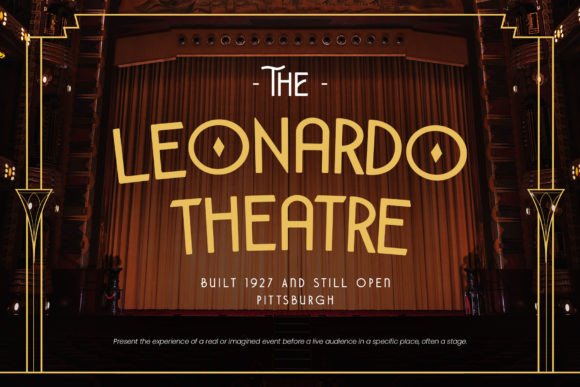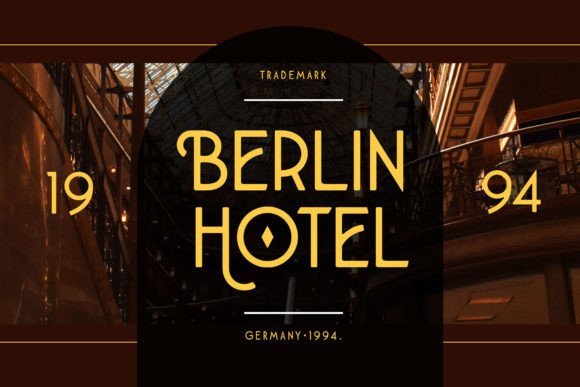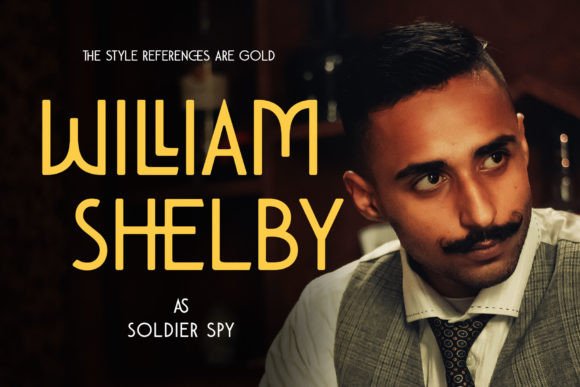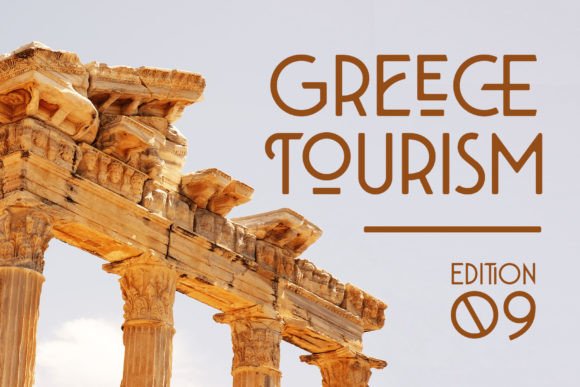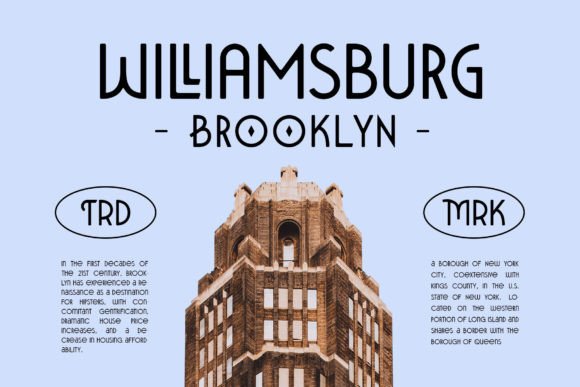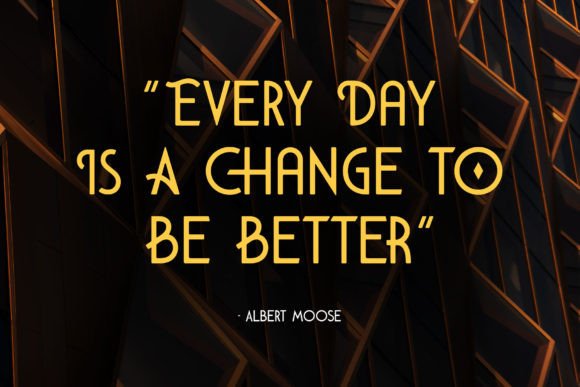
Introduction to Mayorca Font Font
Fonts play a crucial role in design, and the Mayorca Font font is a typeface that brings both character and versatility to any project. Whether you’re working on a branding project, a website, or a print design, the Mayorca Font font offers a unique style that can elevate your work.
Introducing Mayorca, the legacy of stylish art deco design which was famous in the 1920s.
Mayorca is designed with strong strokes, geometric shapes, and soft edges and corners that give elegant looks and represented wealth, classy, and glory This font has all uppercase letters, created especially for display, headline, poster, logo, branding, and many more.
Key Features of Mayorca Font Font
Why Choose Mayorca Font Font?
The Mayorca Font font is more than just a typeface – it’s a design tool that helps you communicate your message with style and clarity. Its unique character set and versatile design make it suitable for a wide range of applications, from elegant invitations to bold headlines.
With its carefully crafted letterforms and balanced proportions, the Mayorca Font font ensures readability and visual appeal across all mediums.
What makes Mayorca Font font special?
The Mayorca Font font stands out with its unique design, exceptional readability, and versatility across various design applications.